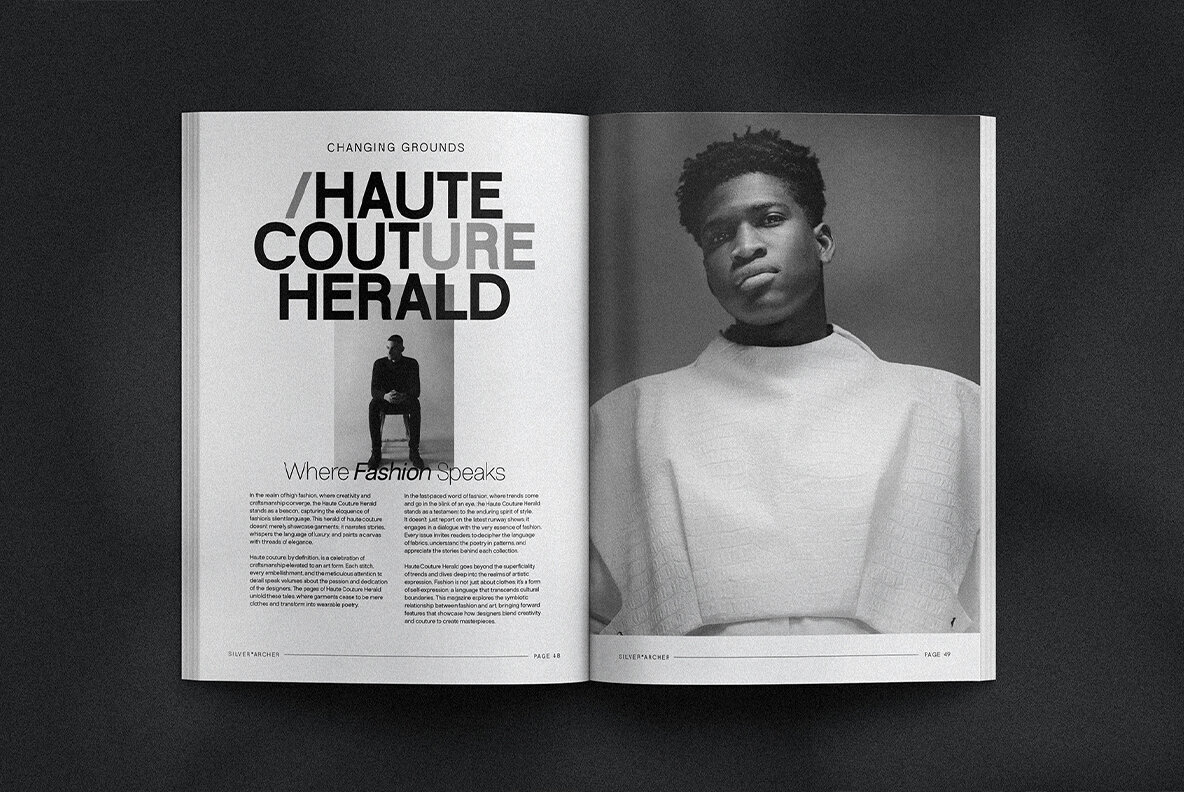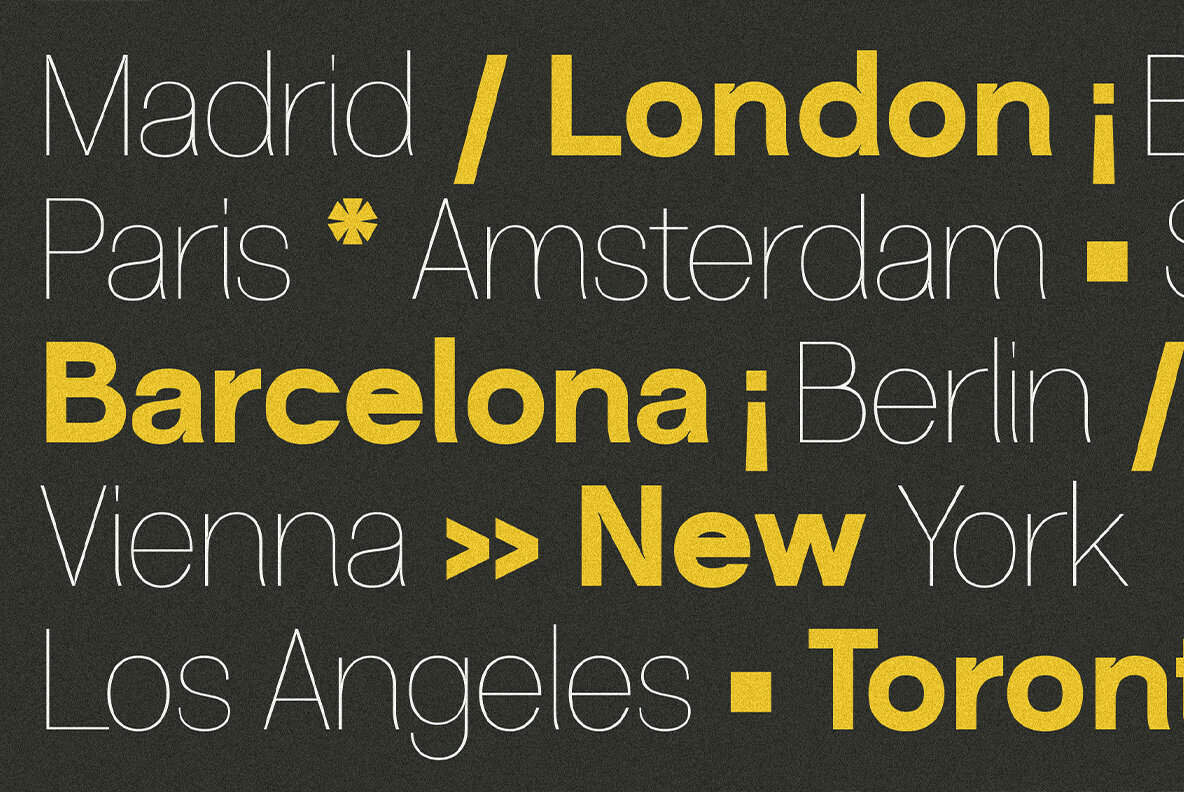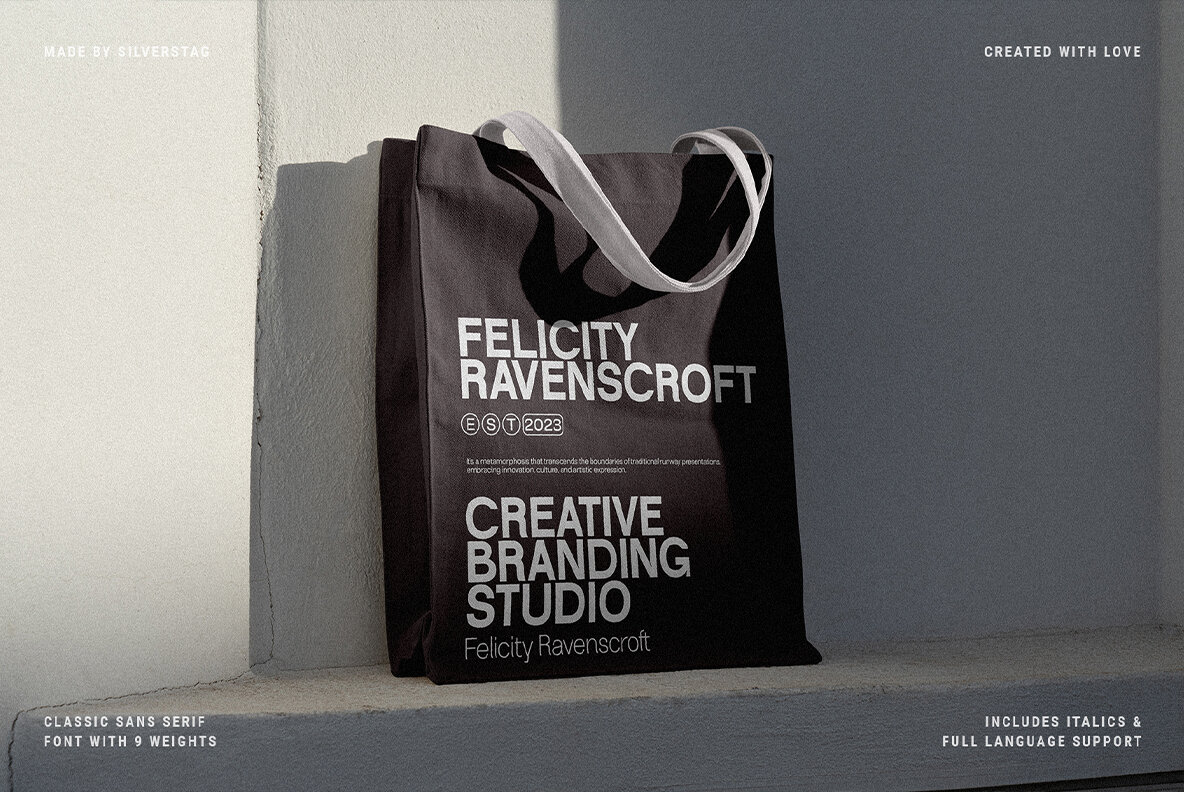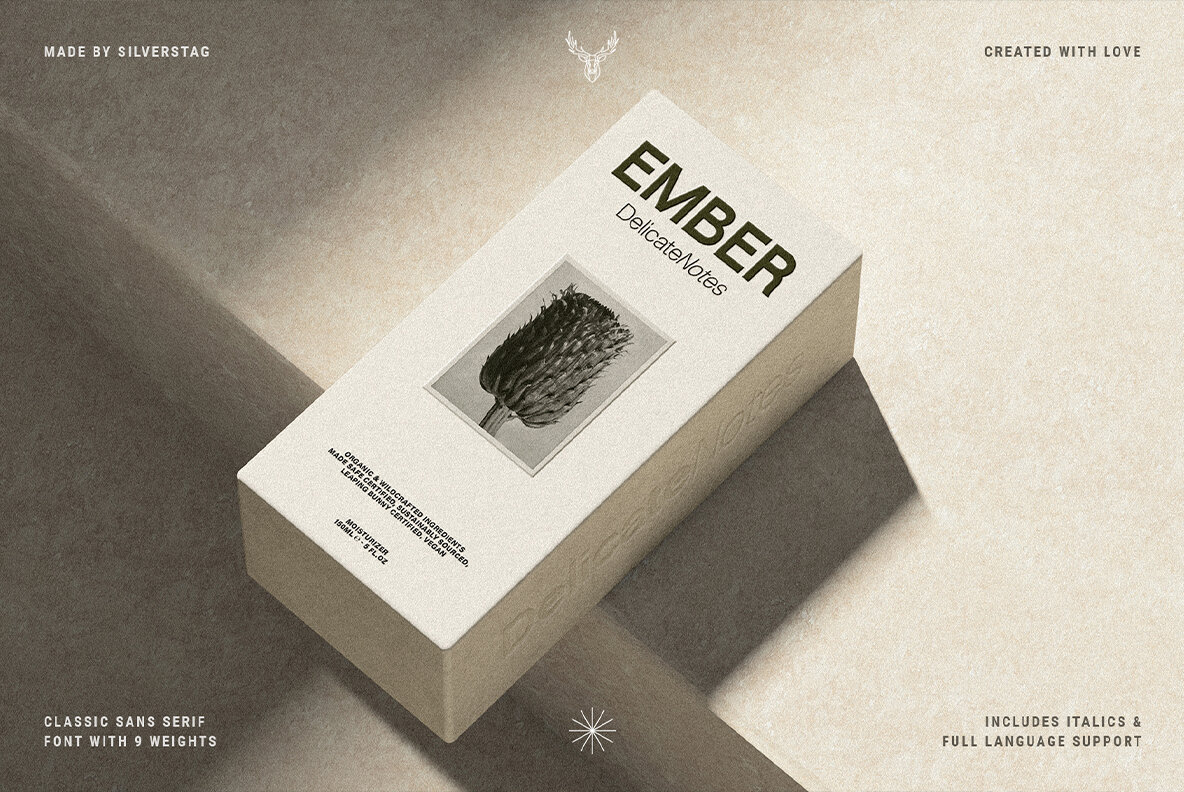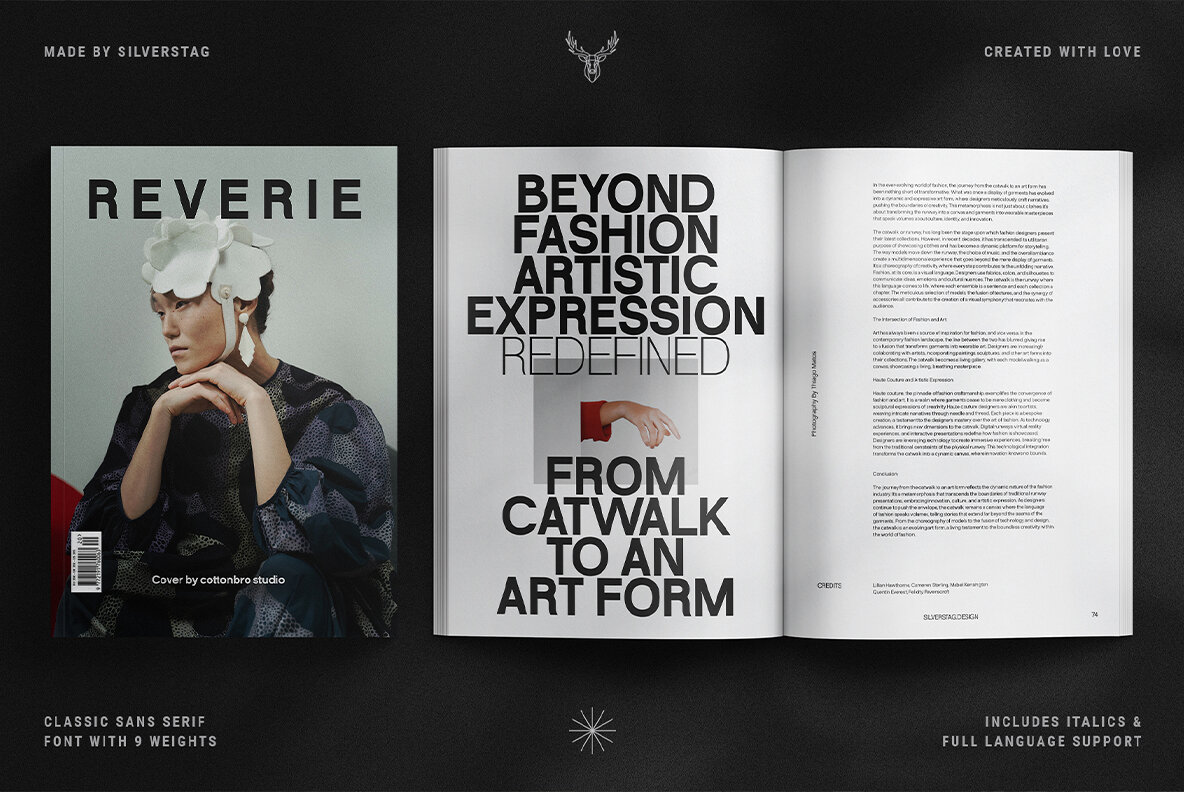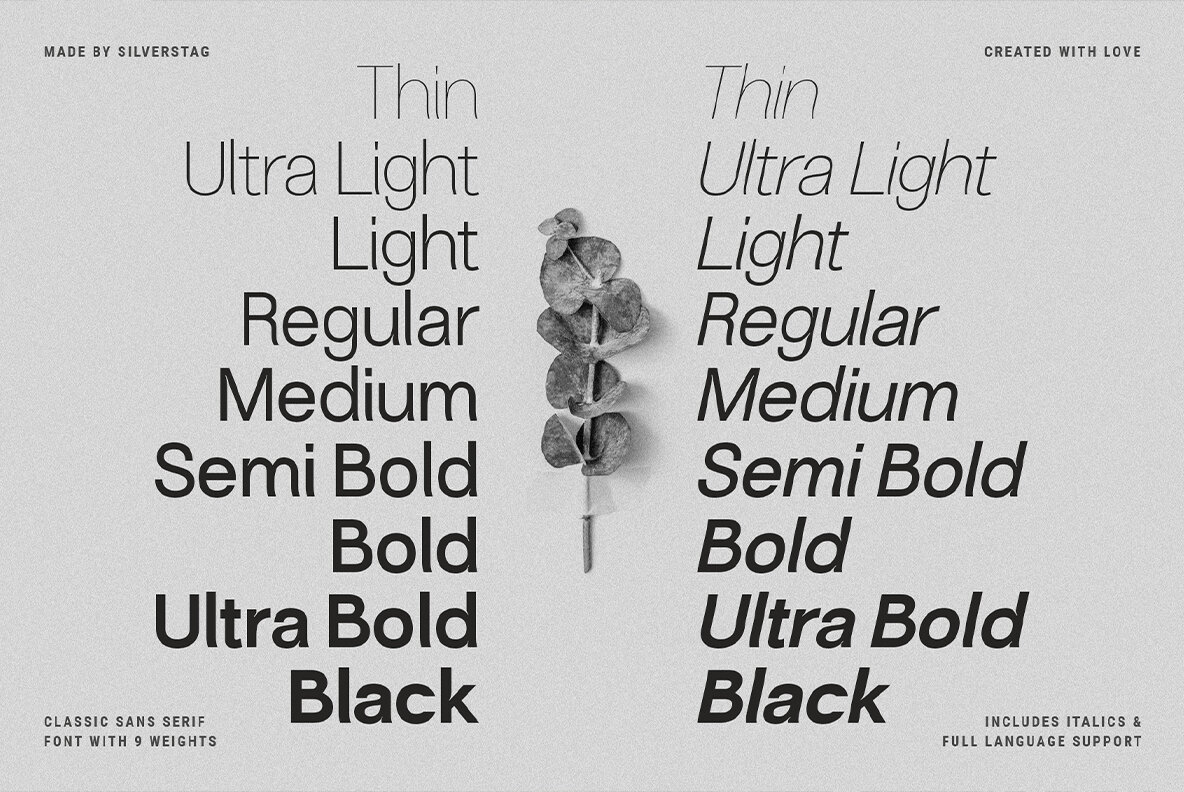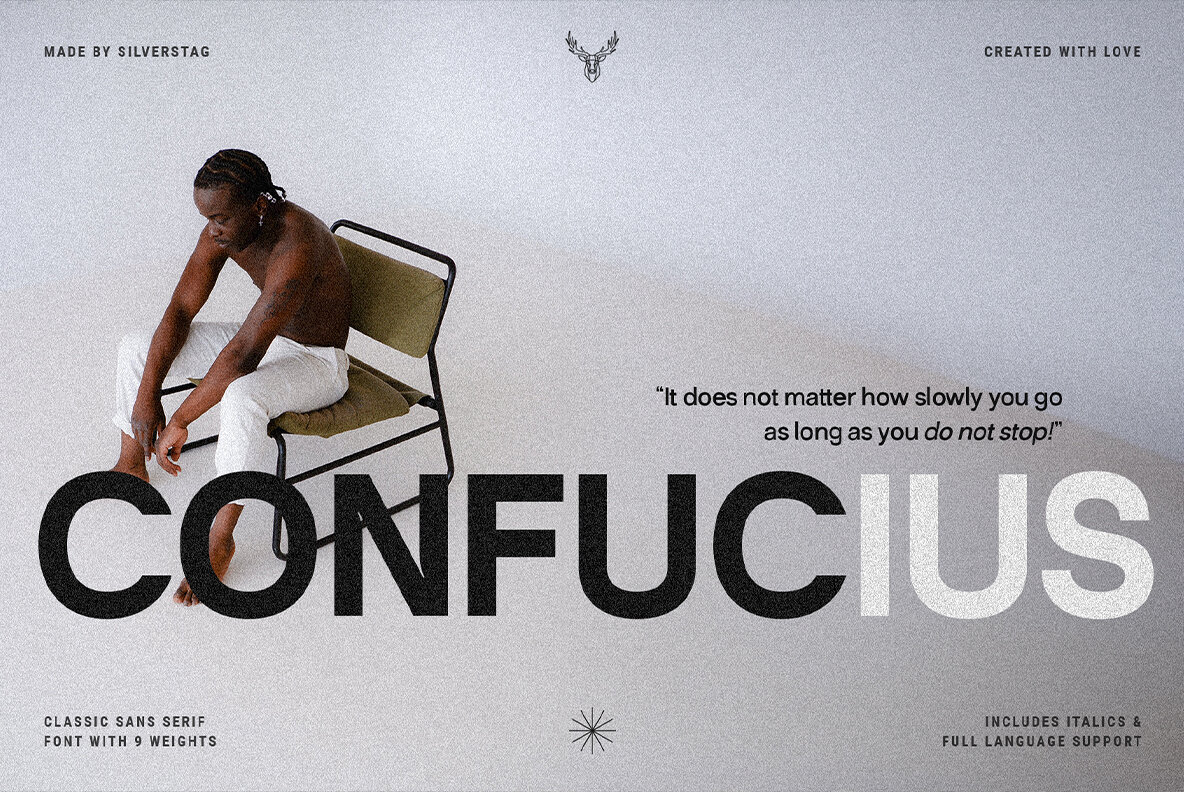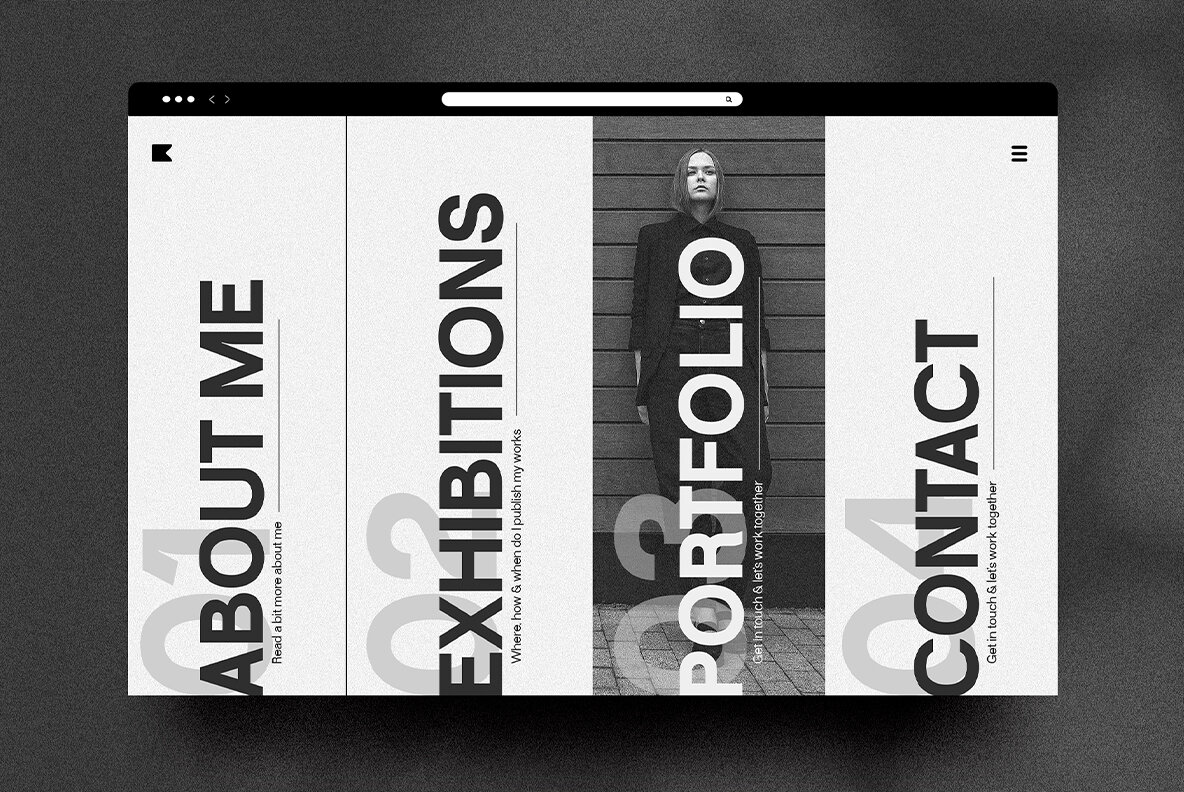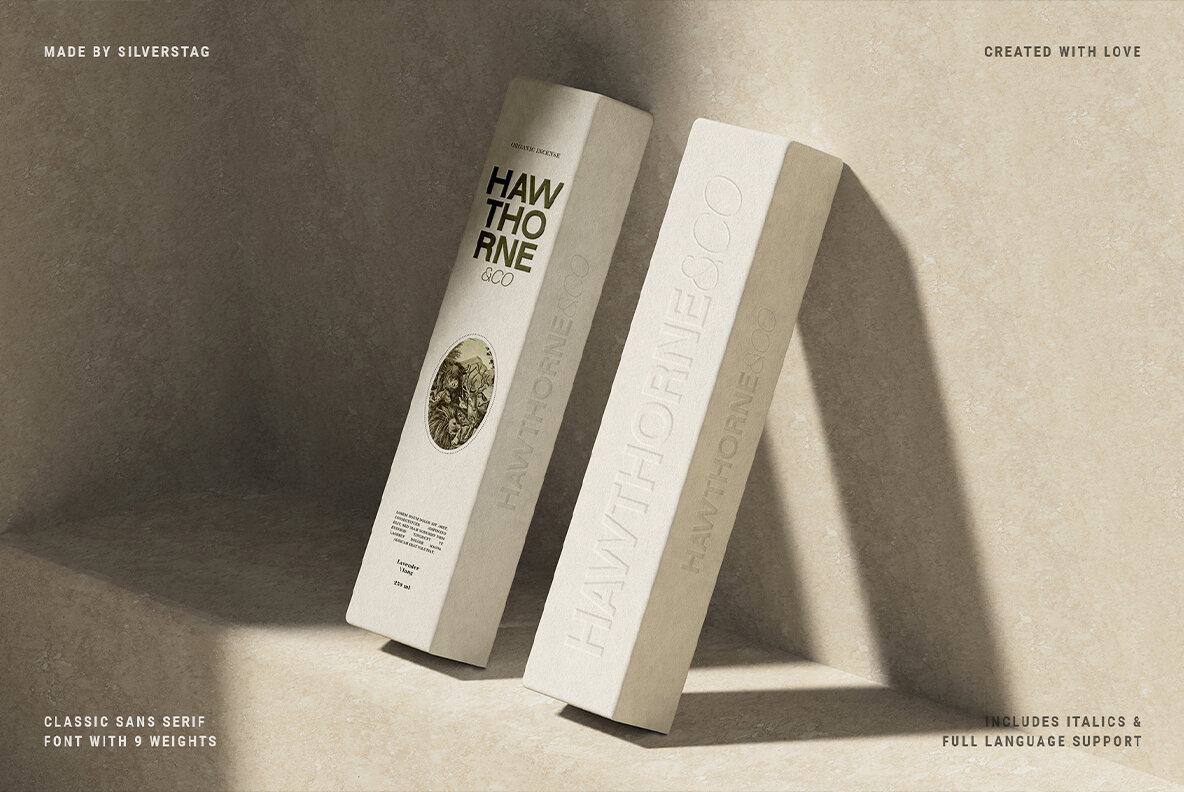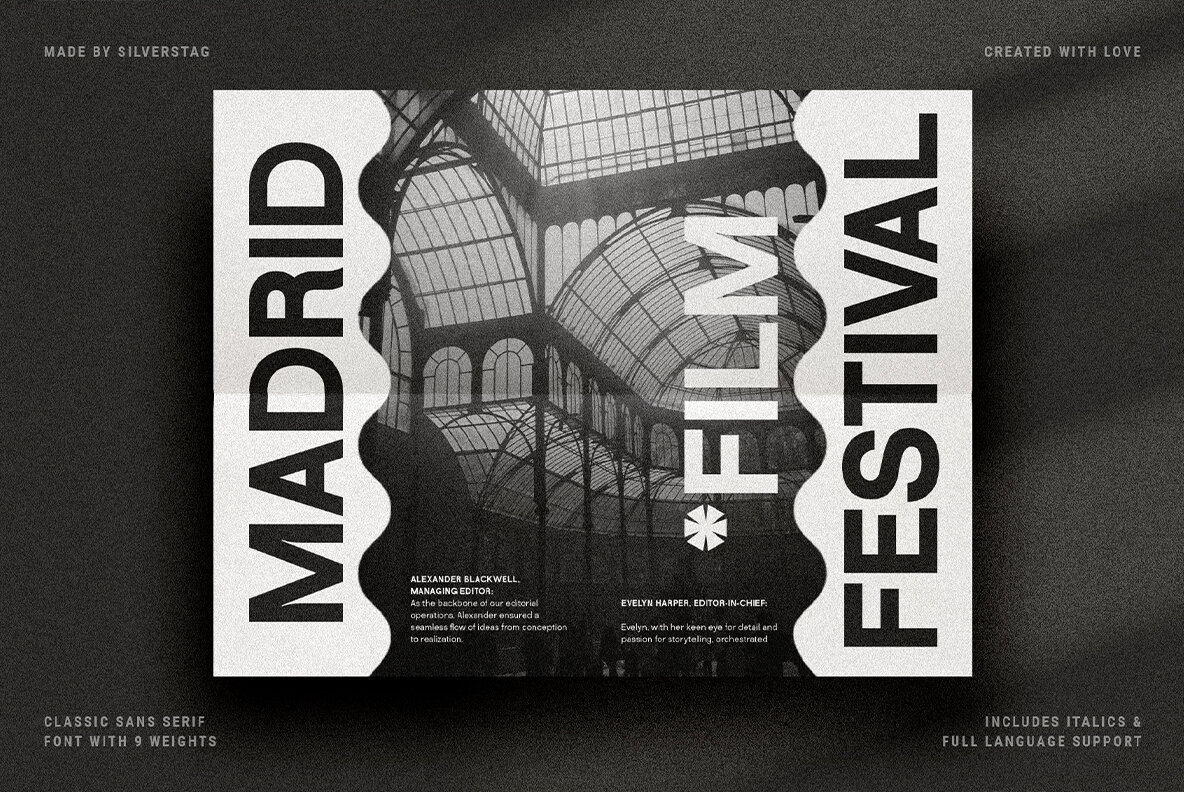
Silver Archer Font
In a world of fleeting trends, Silver Archer stands as a testament to enduring elegance and timeless design. Inspired by the classic sans serif typefaces of the mid-20th century, Silver Archer exudes an air of sophistication and refinement, making it an ideal choice for a wide range of typographic applications. With its meticulously crafted proportions and harmonious stroke contrast, Silver Archer strikes a perfect balance between traditional aesthetics and contemporary sensibilities. Its open counters and generous x-height ensure exceptional legibility, both on screen and in print, while its nine weights, ranging from Thin to Black, with each weight complemented by its italic counterpart, provide ample flexibility to suit any design mood or hierarchy. Silver Archer's versatility extends beyond its visual appeal, encompassing a comprehensive language support that spans over 90 languages. This extensive coverage empowers designers to create multilingual projects with seamless consistency, ensuring that Silver Archer's elegance transcends cultural boundaries. Whether gracing the cover of a literary masterpiece, illuminating a corporate identity, or guiding users through a digital interface, Silver Archer seamlessly blends tradition and modernity, imbuing every project with an aura of timeless sophistication.